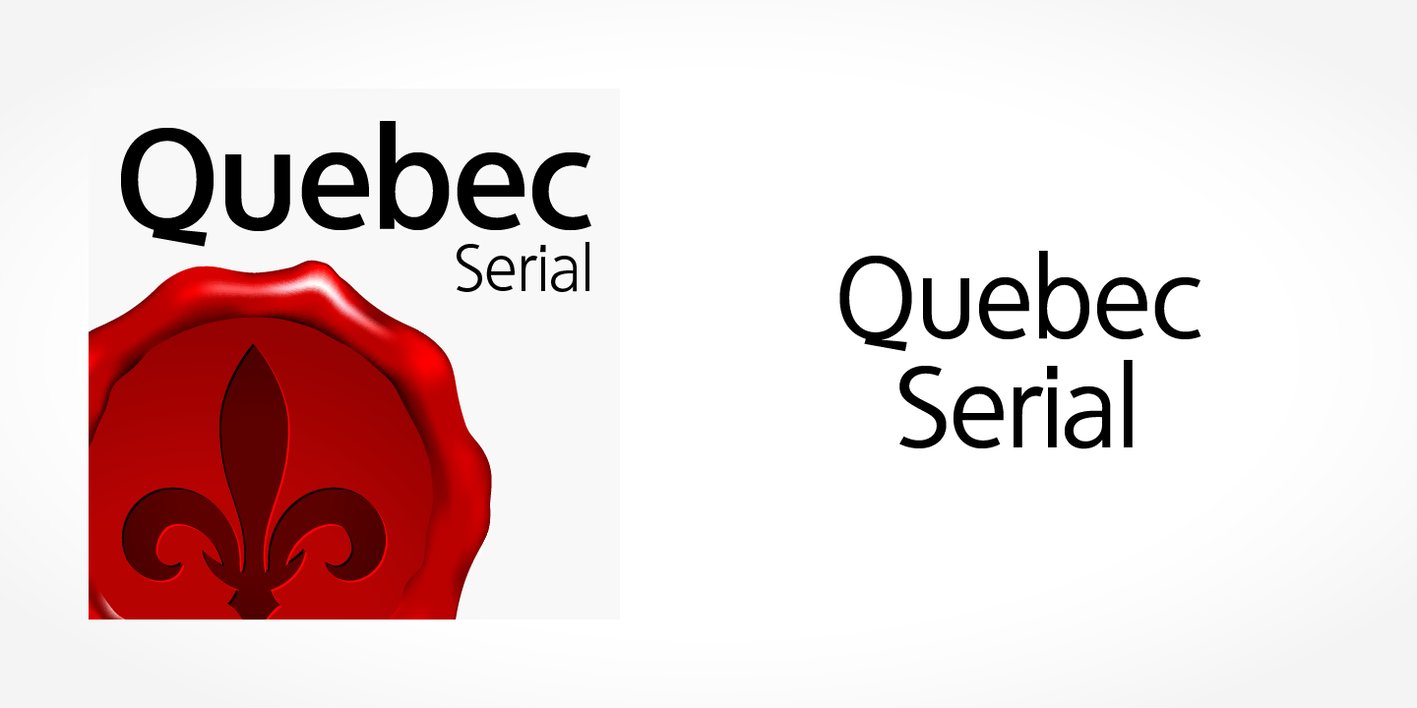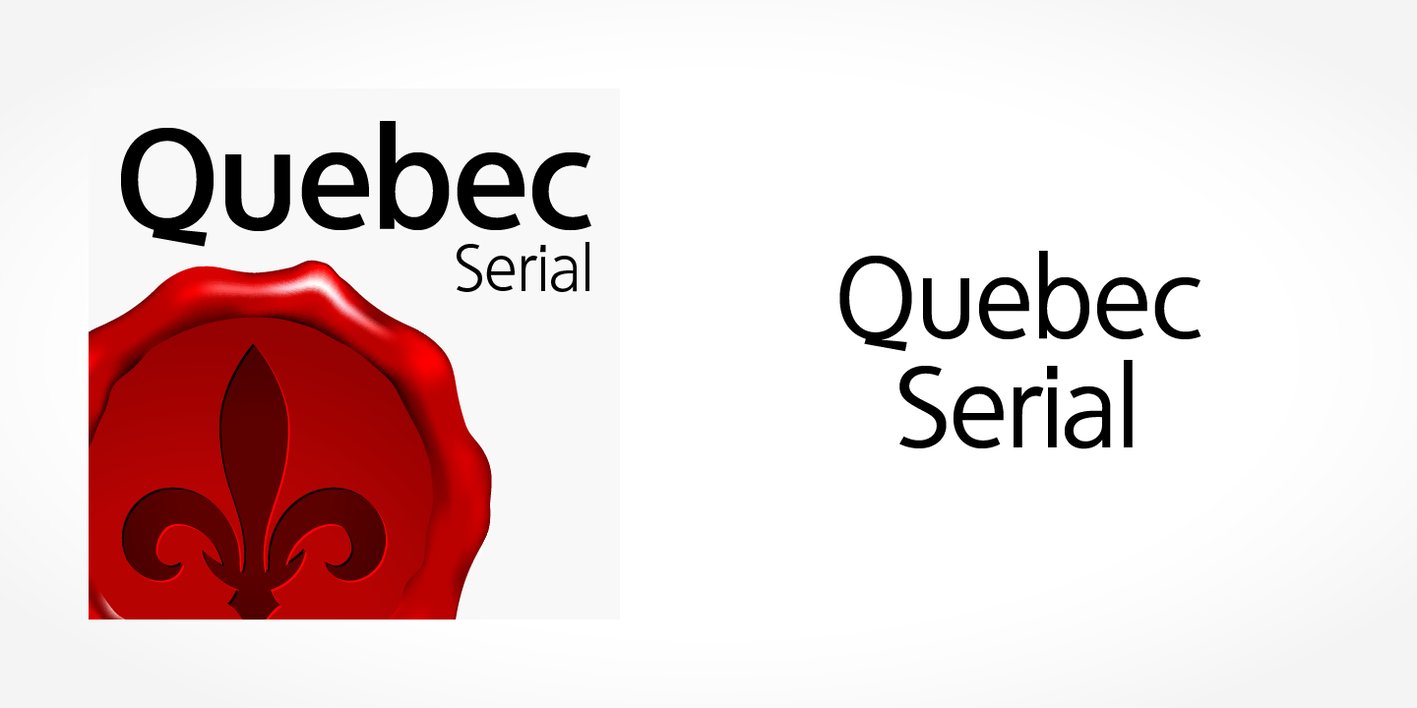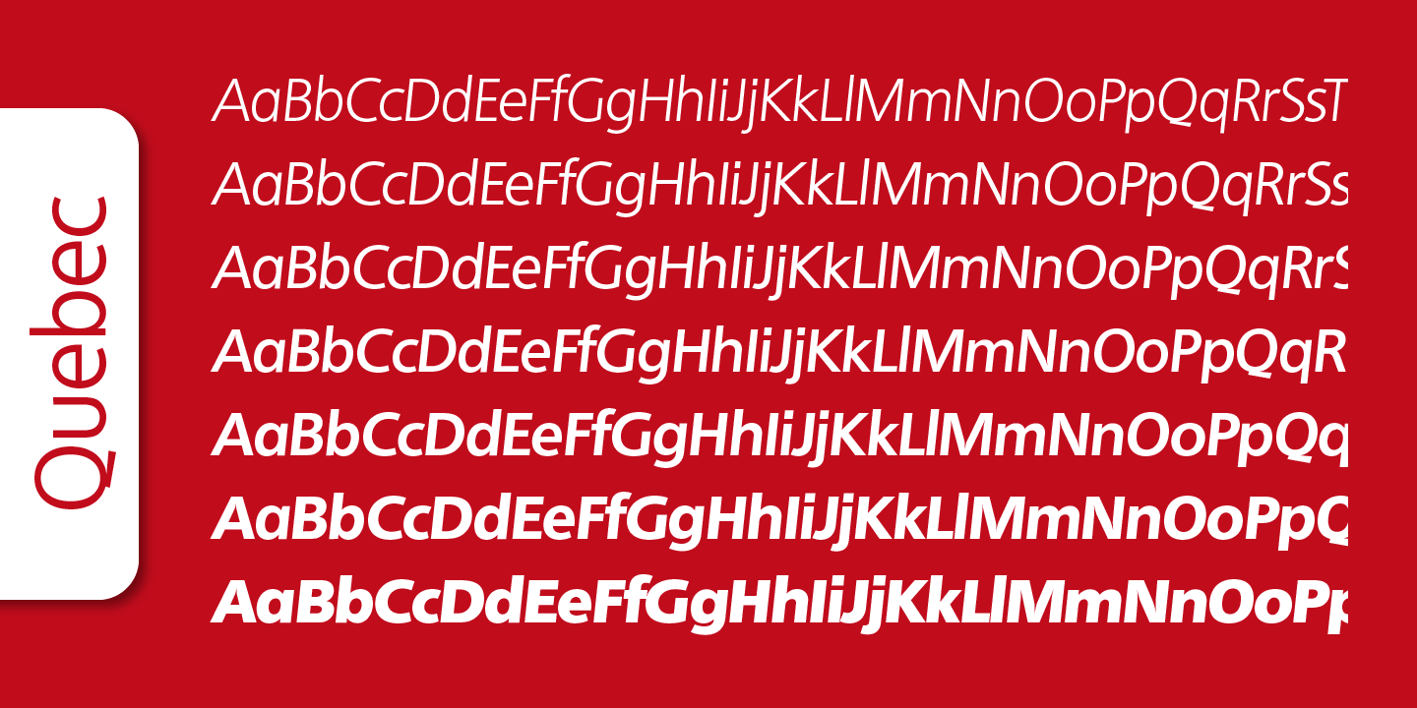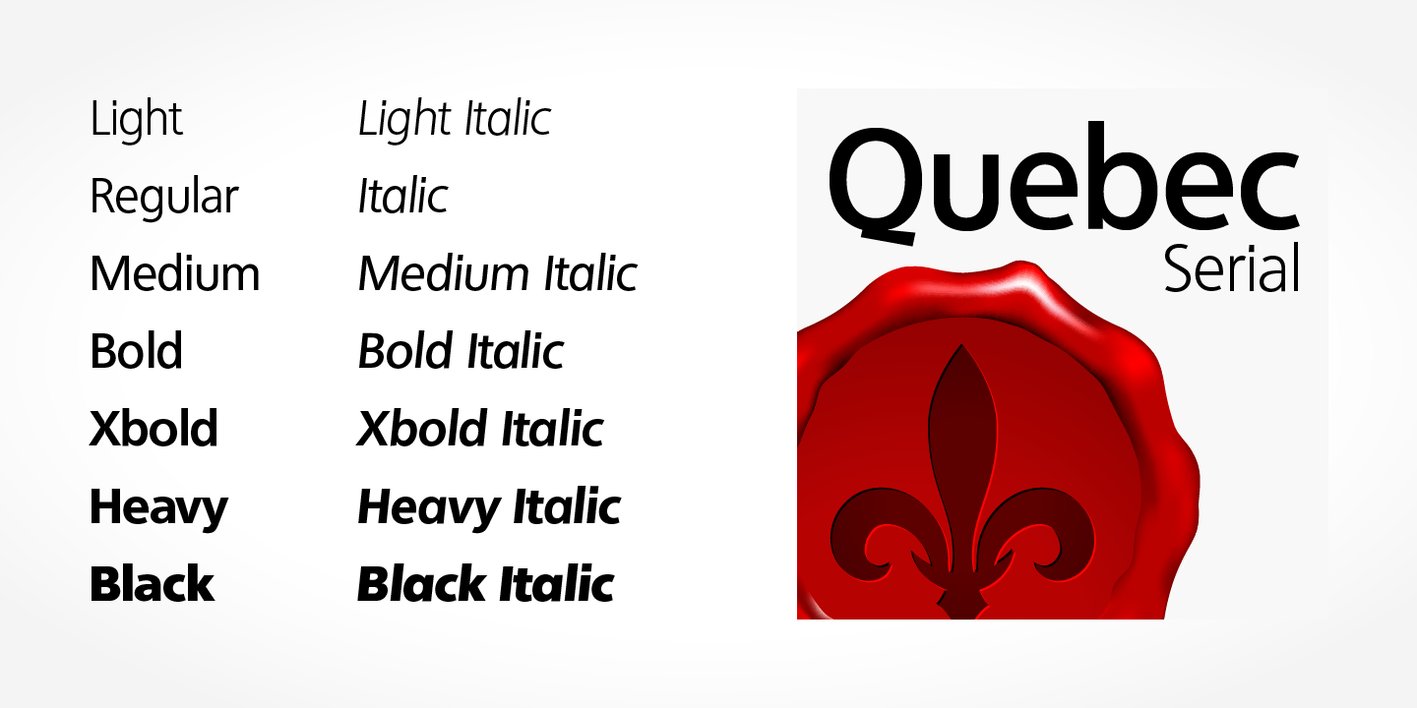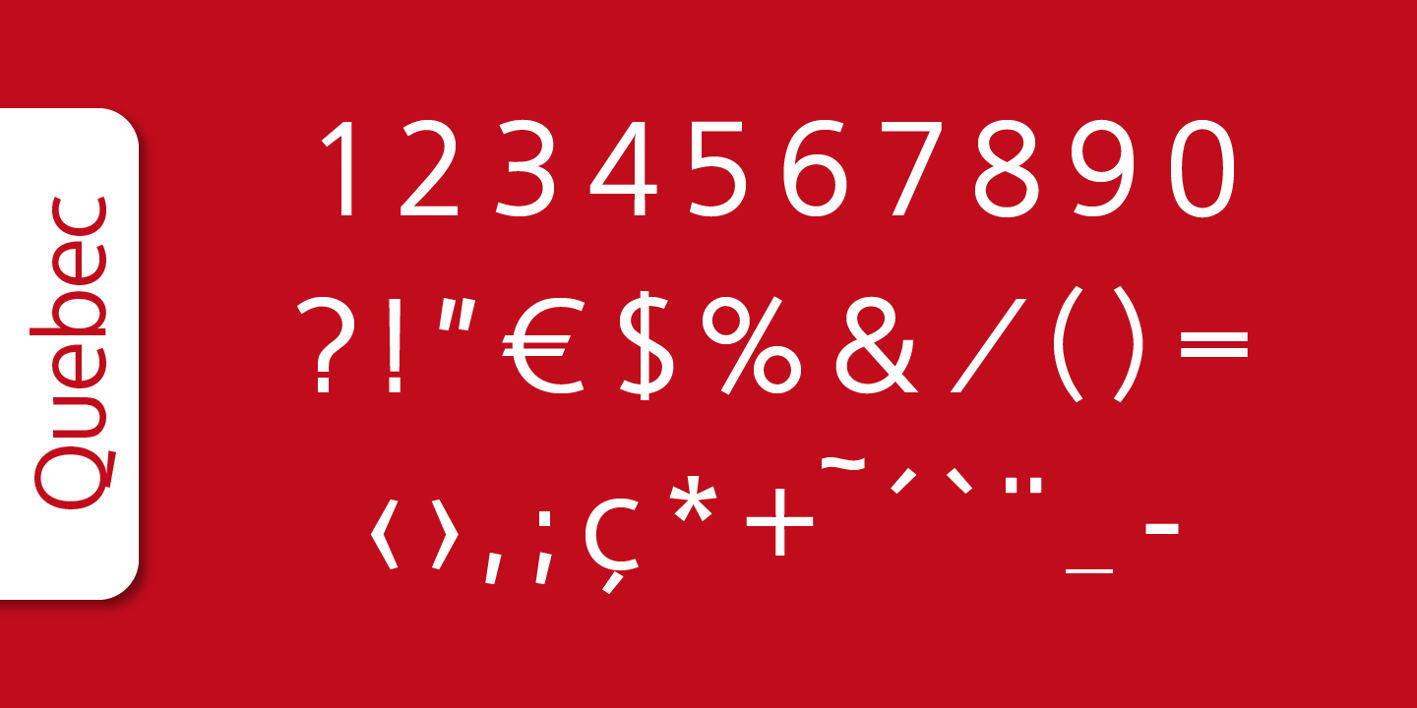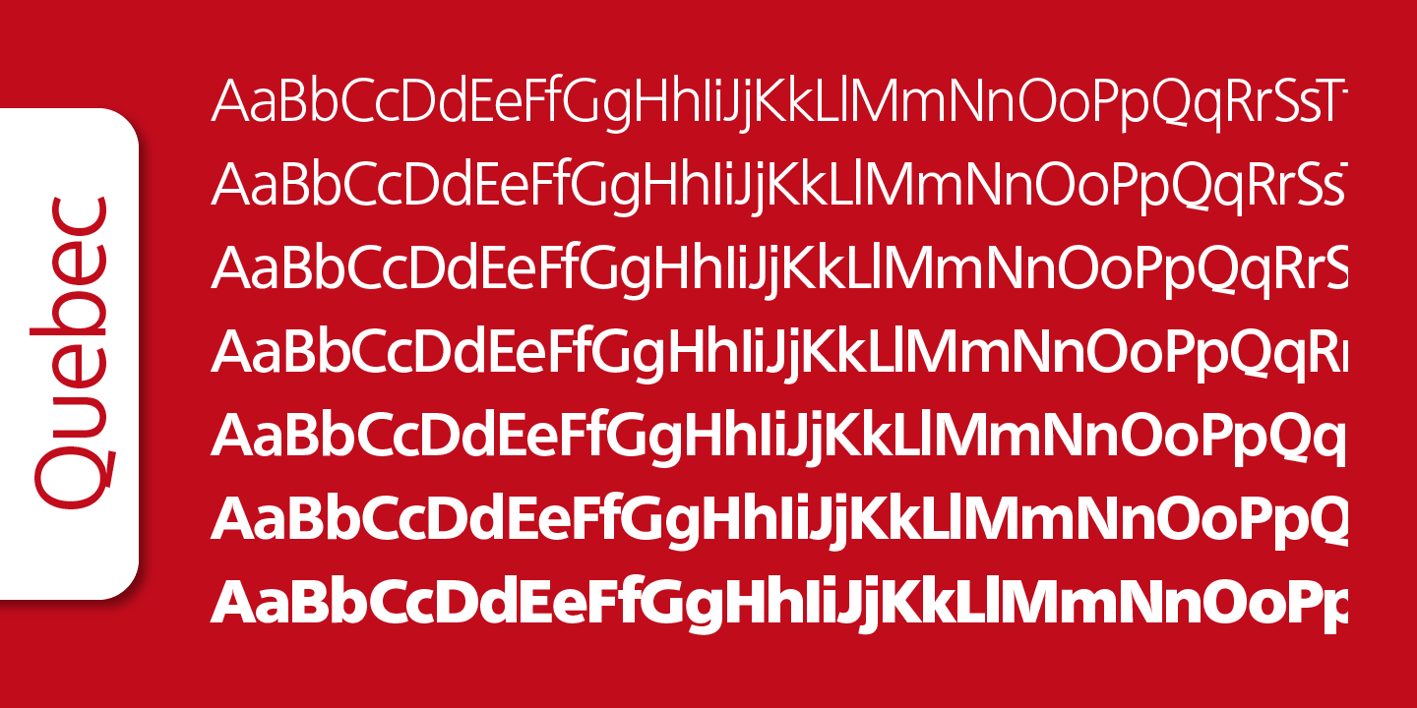
Quebec Serial Font
Quebec Serial Font is perfect for industrial design, military-themed graphics, aviation branding, tactical equipment packaging, outdoor gear marketing, technical manuals, government documentation, aerospace presentations, security company materials, law enforcement signage, defense contractor communications, and professional projects that require authoritative, systematic typography with institutional credibility.
What makes Quebec Serial Font so exciting is its commanding authority and systematic precision that embodies the disciplined excellence of military and institutional communications. This typeface features structured letterforms with clean geometry and standardized proportions that create immediate visual order and convey reliability, professionalism, and uncompromising quality standards. The font's institutional character and authoritative presence make it perfect for organizations that demand typography as precise and dependable as their operations.
Quebec Serial Font typically comes in multiple weights and styles including Light, Regular, Medium, Bold, and Black variations. Many versions also include condensed widths, technical symbols, and specialized characters that enhance the font's institutional functionality and provide designers with comprehensive tools for creating systematic, regulation-compliant typography systems for professional applications.
Establish institutional authority with the systematic precision of Quebec Serial Font Free Download. This commanding typeface brings together military-grade reliability with contemporary design functionality, making it an indispensable tool for organizations that need typography as disciplined and trustworthy as their mission-critical operations. The font's authoritative character ensures your communications will convey competence and institutional credibility.
Whether you're designing government materials, industrial documentation, or institutional branding, Quebec Serial Font delivers unmatched authority and systematic reliability that builds trust with audiences who demand precision, accountability, and professional excellence. Its structured appearance works exceptionally well in technical applications where clarity and standardization are essential for operational success and regulatory compliance.
The precisely engineered letterforms of Quebec Serial Font showcase the highest standards of institutional typography design with particular attention to systematic consistency and regulatory requirements. Each character has been meticulously crafted to ensure optimal legibility and professional appearance across all official communications, making it particularly valuable for organizations where typography must meet exacting standards.